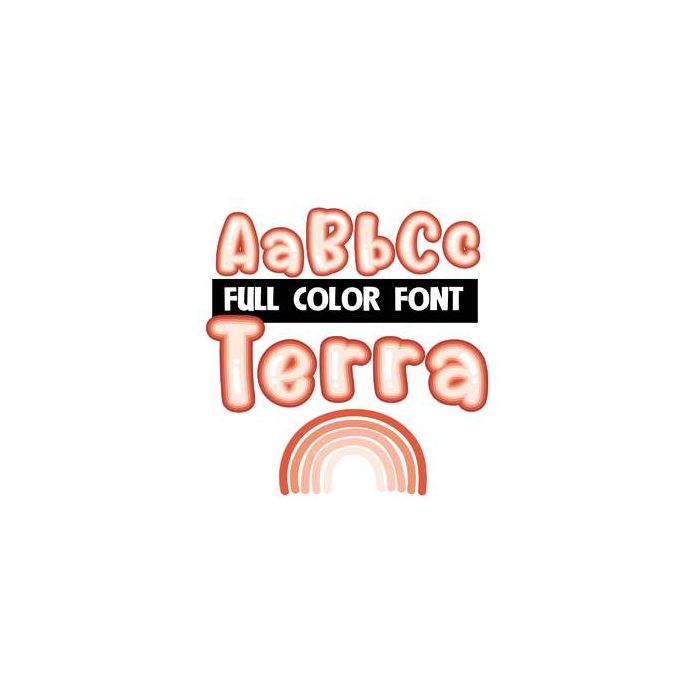
This terracotta-color inspired font features multiple shades of terracotta surrounding each letter and a bonus rainbow in terracotta colors in place of the ^ symbol. This font works best for titles, displays, posters and more. Please note color fonts will show as black in non compatible programs. This font type is compatible with Silhouette Studio.